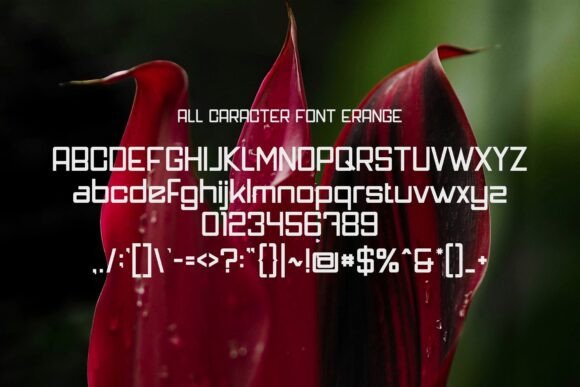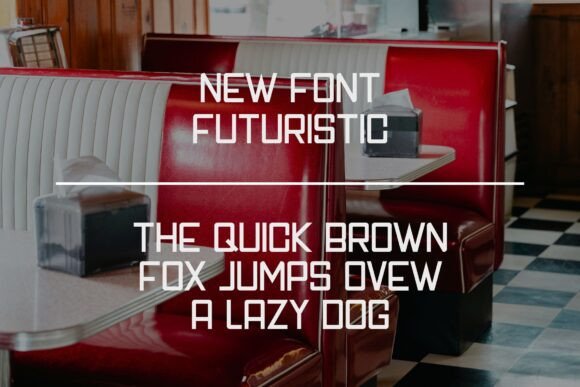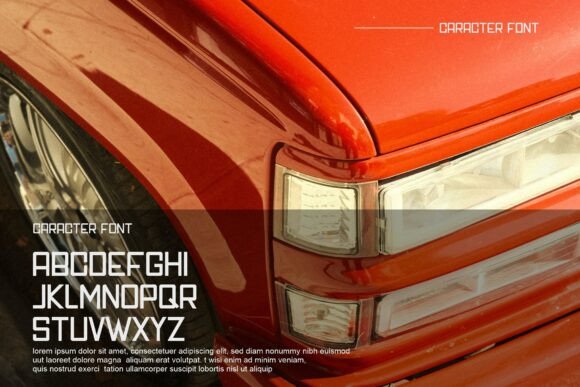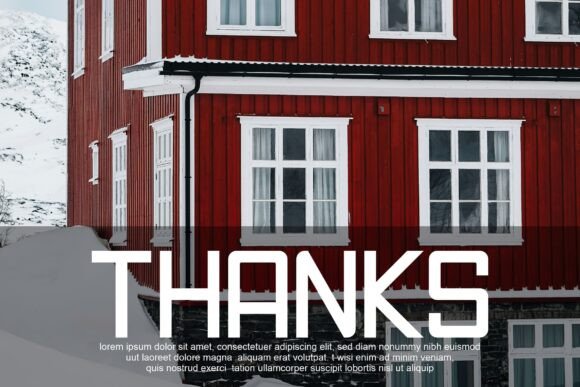
Discover the Charming Erange Font: Elevate Your Designs with Style
Are you on the hunt for a font that combines modern charm with a touch of style? Look no further than the Erange Font. This sans serif font is not just a pretty face; it’s packed with features that can elevate your designs to the next level. In this article, we’ll dive into the world of Erange, exploring its unique characteristics, alternative features, and how to make the most of this versatile font.
The Erange Font: A Sans Serif with a Twist
Erange is more than just another sans serif font. Its clean lines and modern aesthetic make it perfect for designs that require a fresh, contemporary look. But what sets Erange apart is its charming touch of style. This font has been carefully crafted to add a bit of personality to your designs without overwhelming them. Whether you’re working on a branding project, a website, or marketing materials, Erange provides a solid foundation for creating visually appealing and engaging content.
Exploring Alternative Features
One of the standout features of the Erange Font is the inclusion of several alternative characters. These alternatives allow you to add variety to your text, making it more dynamic and interesting. For instance, you can use different versions of letters or numbers to create a unique visual rhythm. This feature is especially useful for designers looking to add a bit of flair to their work without resorting to complex graphics or illustrations.
Adding an Extrude Style for Extra Impact
To truly make Erange shine, consider adding an extrude style to your design. This technique involves creating a 3D effect by layering text or objects, which can add depth and dimension to your work. When combined with Erange’s sleek lines and charming aesthetic, an extrude style can transform your design into something truly eye-catching. Whether you’re designing a poster, a logo, or a website header, the extrude style can help your text stand out and grab attention.
Who is Erange Font Suitable For?
Erange is an incredibly versatile font, making it suitable for a wide range of design projects. If you’re looking for a font that displays an interesting side while still maintaining a charming, modern look, Erange is an excellent choice. This font is particularly well-suited for:
- Graphic designers working on branding and identity projects
- Web designers seeking a modern, clean font for their website
- Marketing professionals looking for a stylish font for promotional materials
- Crafters and DIY enthusiasts creating their own signage or decorative items
Tips for Using Erange Font
To get the most out of Erange, here are a few tips:
- Experiment with alternative characters: Don’t be afraid to try out different versions of letters and numbers to add some personality to your text.
- Add an extrude style: As mentioned earlier, adding depth and dimension to your text can make it stand out.
- Mix and match with other fonts: Erange works well on its own, but it can also be paired with other fonts to create a unique visual hierarchy.
- Pay attention to spacing and kerning: Make sure to adjust the spacing and kerning of your text to ensure it looks balanced and visually appealing.
The Erange Font is a stylish and versatile sans serif font that can add a touch of charm to your designs. With its alternative features, extrude style possibilities, and modern aesthetic, Erange is the perfect choice for designers and crafters looking to elevate their work. Whether you’re working on a professional project or a personal craft, Erange provides the perfect blend of style and functionality. So why not give Erange a try and see how it can transform your designs?